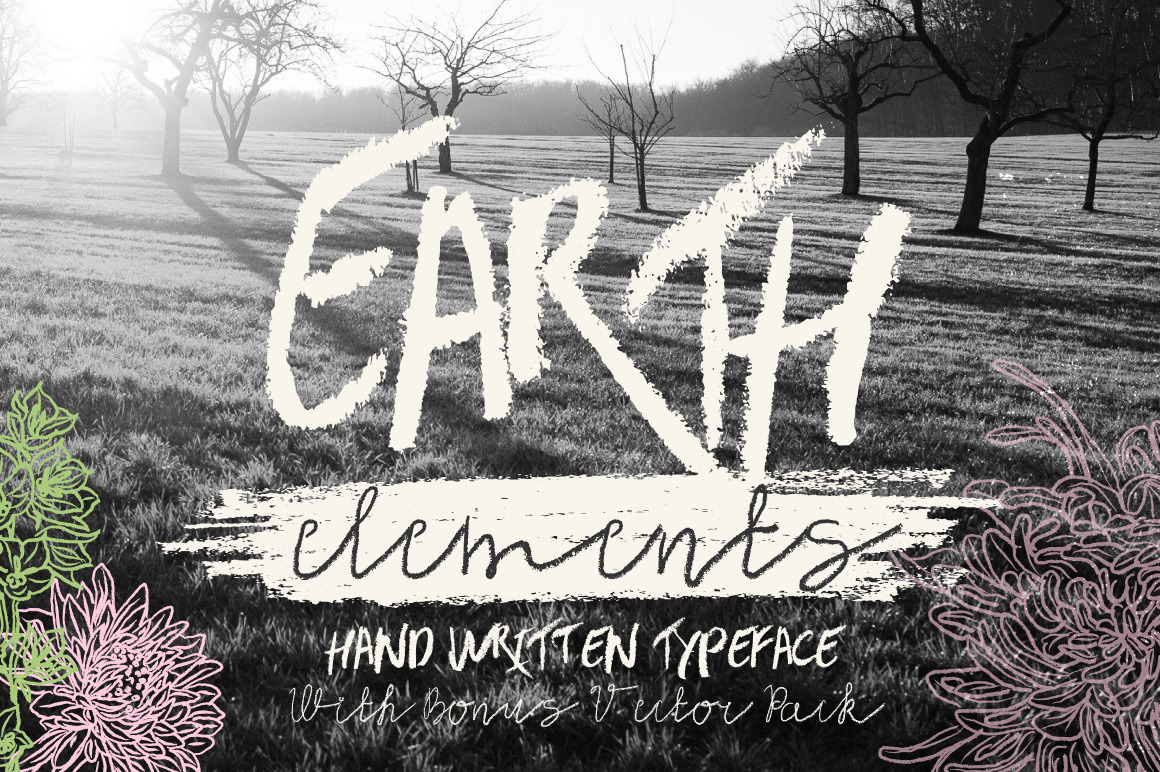
Earth Elements Typeface
Earth Elements - hand written typeface
Earth elements is 2 fonts combining two different styles – one is rough and dirty and the second is soft and smooth. Hand painted with real oil panda crayons and then each letter was carefully converted to the font.
Each font has uppercase, lowercase, numbers, ligatures and punctuation.